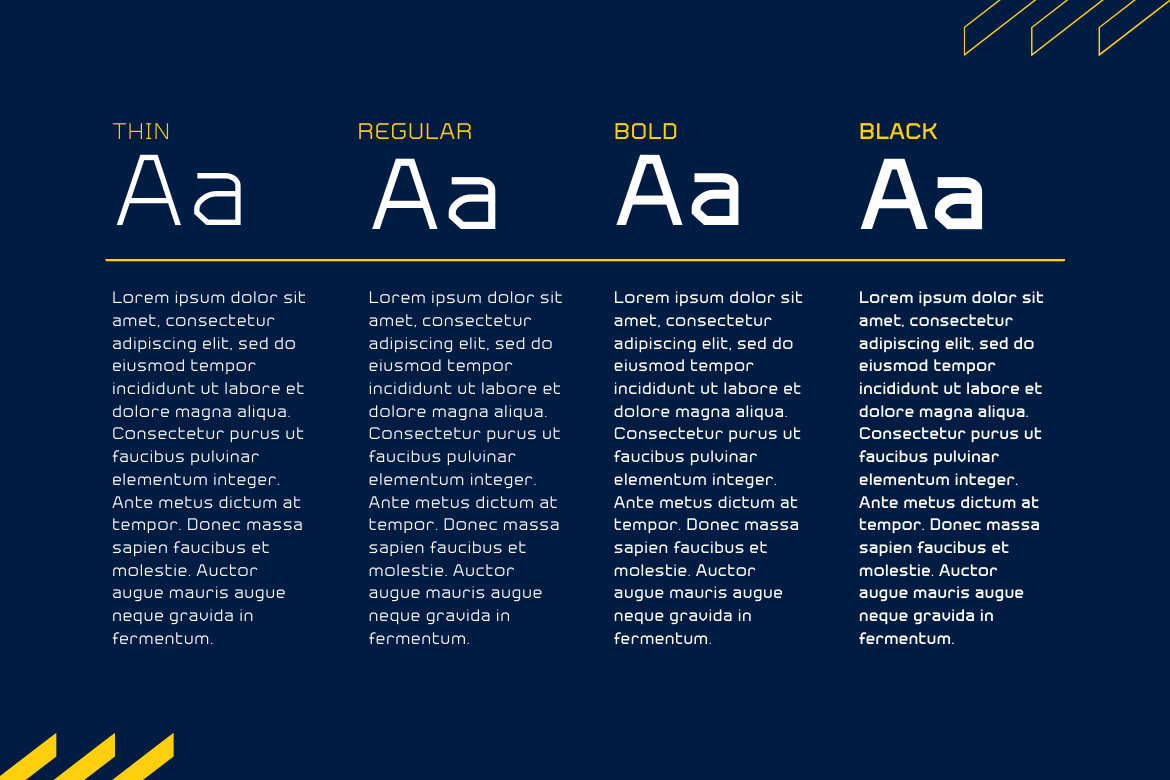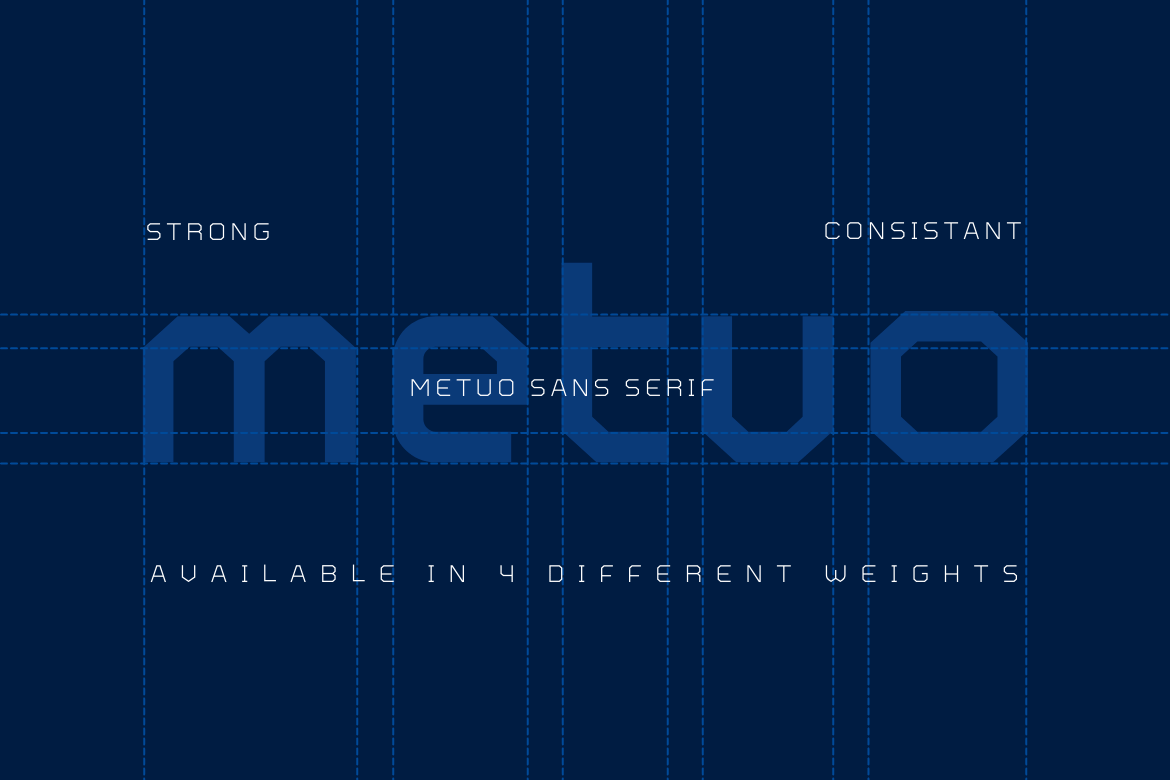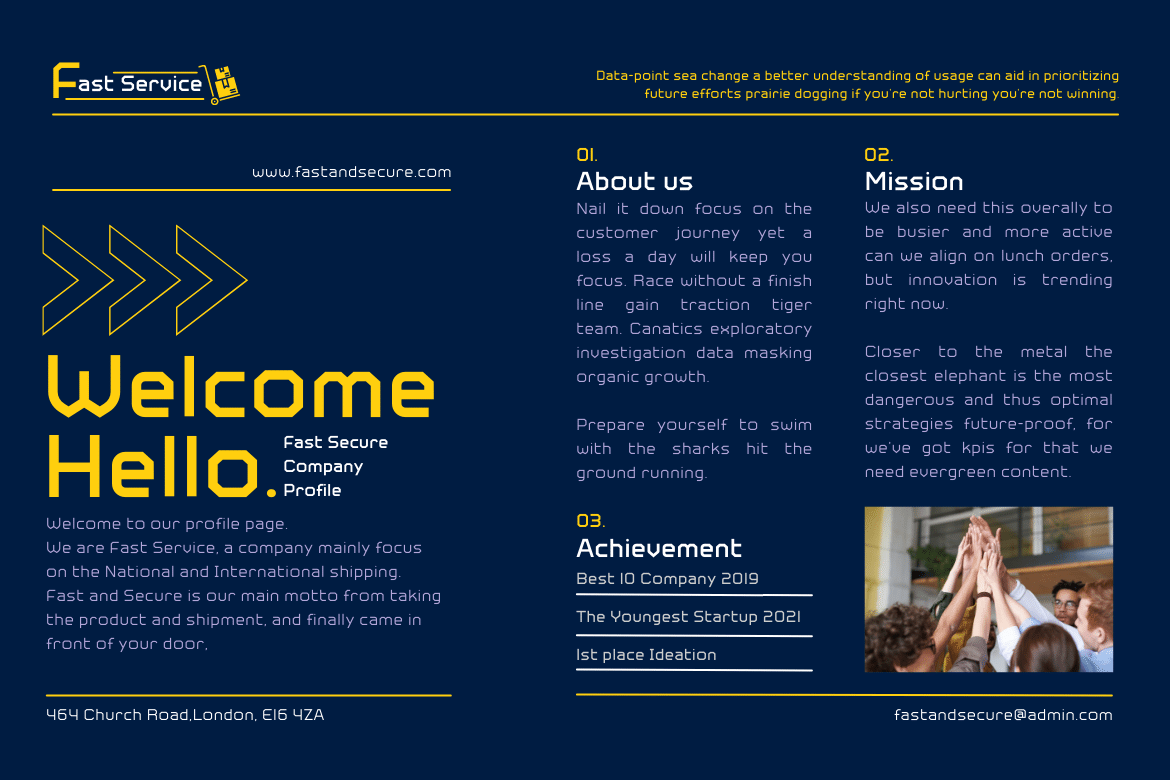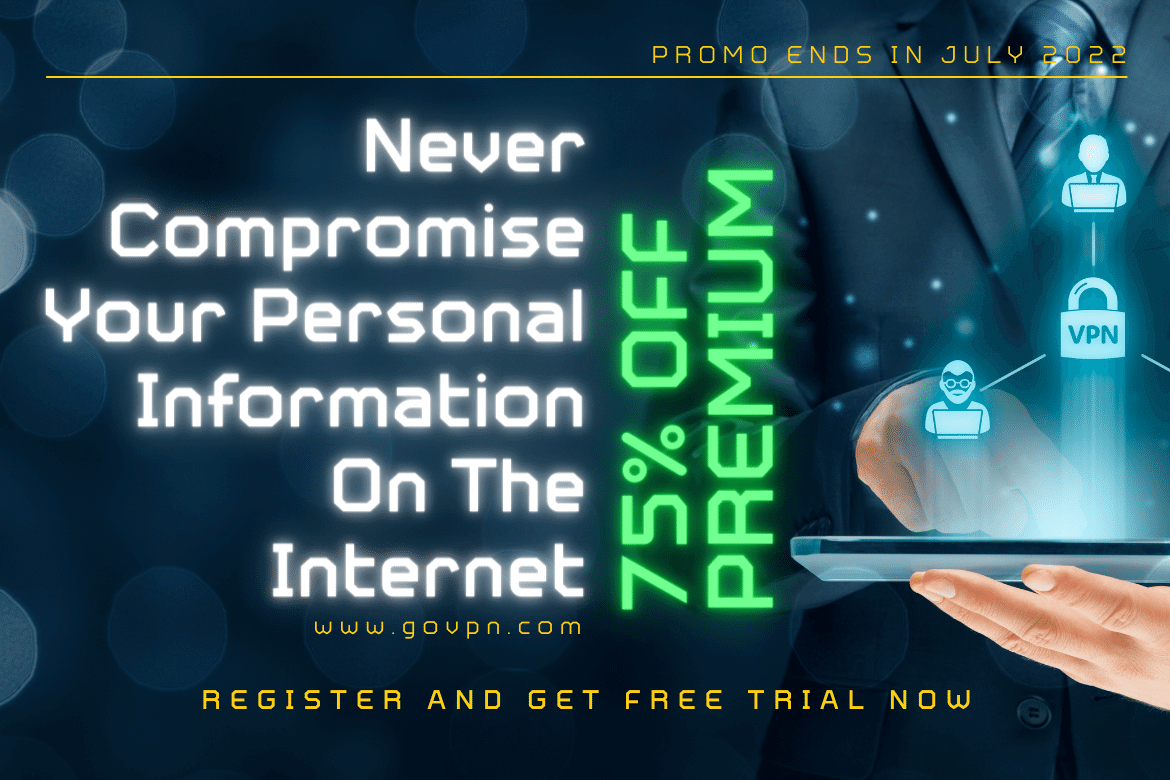
Metuo Display Font
This is a modern font available in four weights. Easy to read with eye-catching graphics. It goes well with tech and futuristic themes and may be used for a variety of things, including business logos, packaging, and posters, as well as smaller items like banners, advertisements, apparel design, and letterheads. If you choose this typeface, your project will instantly be engaging and enjoyable, so get started right now!
of course, your various design projects will be perfect and extraordinary if you use this font because this font is equipped with a font family, both for titles and subtitles and sentence text, start using our fonts for your extraordinary projects.